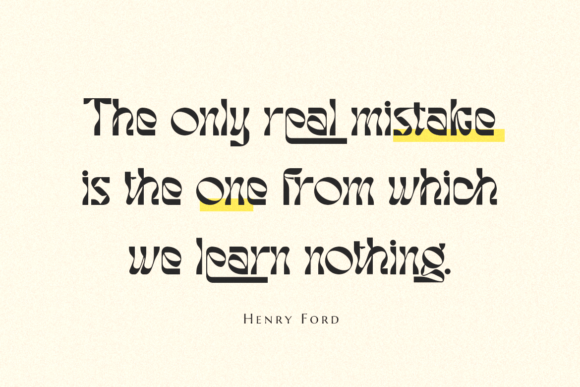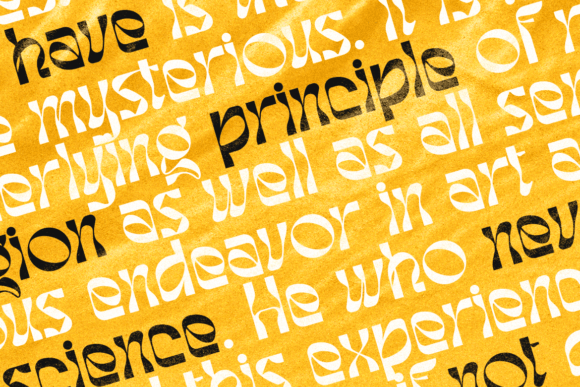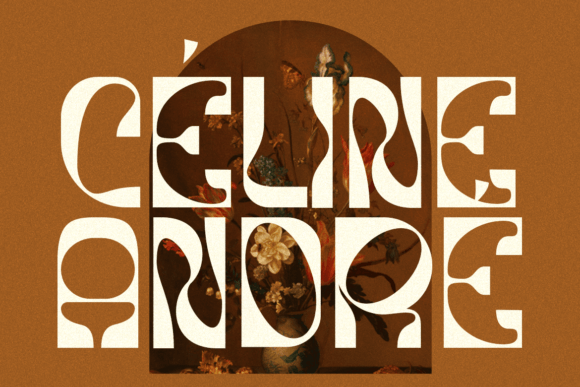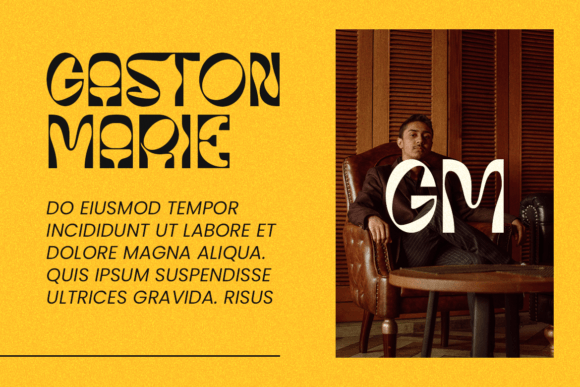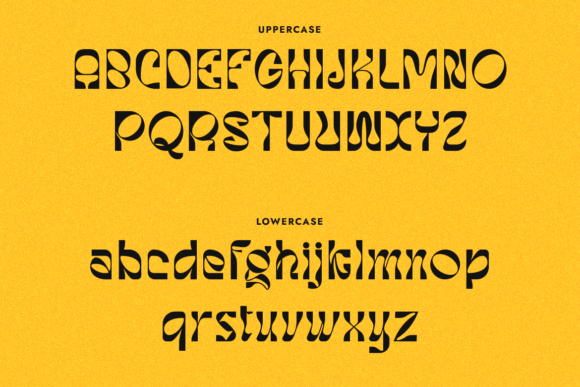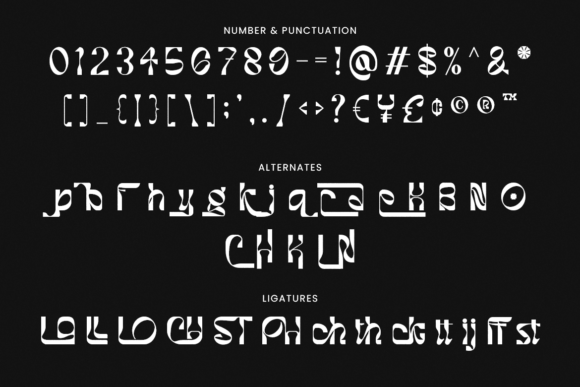
The Perfect Blend of Style and Legibility: Discover Impetous Font
Have you ever stared at a blank page, waiting for the perfect font to inspire your next creative project? For many designers, this is a familiar scenario. The search for the ideal typeface can be a daunting task, but what if we told you that your search is over? Enter Impetous Font, a game-changing typeface that has been making waves in the design community.
Impetous Font is more than just a pretty face – it’s a masterfully crafted blend of style and legibility that will elevate your designs to new heights. Whether you’re working on branding projects, logos, or social media posts, Impetous Font is the perfect partner to help you create stunning visuals that grab attention and leave a lasting impression.
Impetuous Font Key Features
- Font Family: Impetuous
- Font Style: Display Font
- Character Set: Latin, Latin Extended, Cyrillic, Greek
Designer Review: Impetous Font
Overall, I’ve had a pretty mixed experience with Impetous Font. On the one hand, there are some things that I think work well.
- ✨ The font’s playful and energetic vibe is perfect for projects that need a fun and youthful feel.
- ✨ The font’s bold and italic styles are great for adding emphasis and creating visual interest.
- ✨ The font’s range of weights and styles makes it versatile and easy to use in different design contexts.
On the other hand, there are some limitations that might make it less suitable for certain projects.
- ⚠️ The font’s irregularities can make it difficult to read in certain contexts, particularly in large blocks of text.
- ⚠️ The font’s limited language support might be a problem for designers working on international projects.
Overall, I think Impetous Font is a great choice for projects that need a bold and playful feel. However, it’s not the best option for projects that require clear and concise typography.
Getting the Most Out of Impetuous Font
For best results, use Impetuous Font in bold or italic styles to add emphasis to your text. Pair it with a clean and simple background to let the font shine. Experiment with different font sizes and colors to create visual hierarchy and balance.
Impetuous Font is ideal for creative projects, such as branding, packaging, and advertising. It’s also suitable for digital media, like social media posts, blog articles, and presentations.
Alternative Fonts to Impetous
Fontin is a modern sans-serif font with a similar energetic feel to Impetous. It is suitable for use in titles, headings, and other design elements where a bold and dynamic look is desired. Fontin is more versatile than Impetous, with a wider range of weights and styles available.
Playfair Display is an elegant, high-end serif font that can be used to add sophistication and luxury to a design. It is particularly well-suited for use in titles, headings, and other design elements where a touch of elegance is desired. While Playfair Display has a more refined feel than Impetous, it can still be used to create bold and dynamic designs.
Arsenal
Arsenal is a geometric sans-serif font with a similar modern feel to Impetous. It is suitable for use in titles, headings, and other design elements where a clean and minimalist look is desired. Arsenal is more flexible than Impetous, with a wider range of customization options available.
Montserrat is a geometric sans-serif font with a similar urban feel to Impetous. It is suitable for use in titles, headings, and other design elements where a bold and dynamic look is desired. Montserrat is more versatile than Impetous, with a wider range of weights and styles available, and is particularly well-suited for use in digital design and web applications.
Exploring Impetous Font in Creative Projects
Project 1: Impetous Typography Wall
Yes, Impetous Font includes advanced typographic features such as ligatures and contextual alternates. These features can be accessed through your design application’s font settings or by using the OpenType features in your design software.